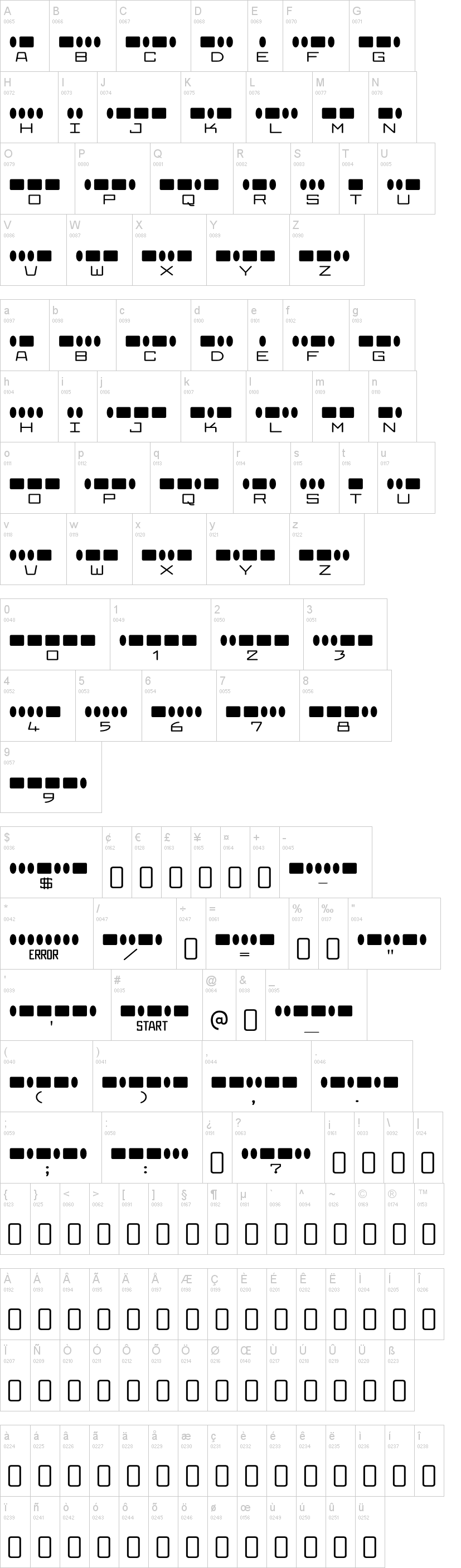
Шрифт Radios in Motion
Radios in Motion is a morse code font in easy and hard styles. Don't forget to read the files inside the zip for details. Updated in 2012.